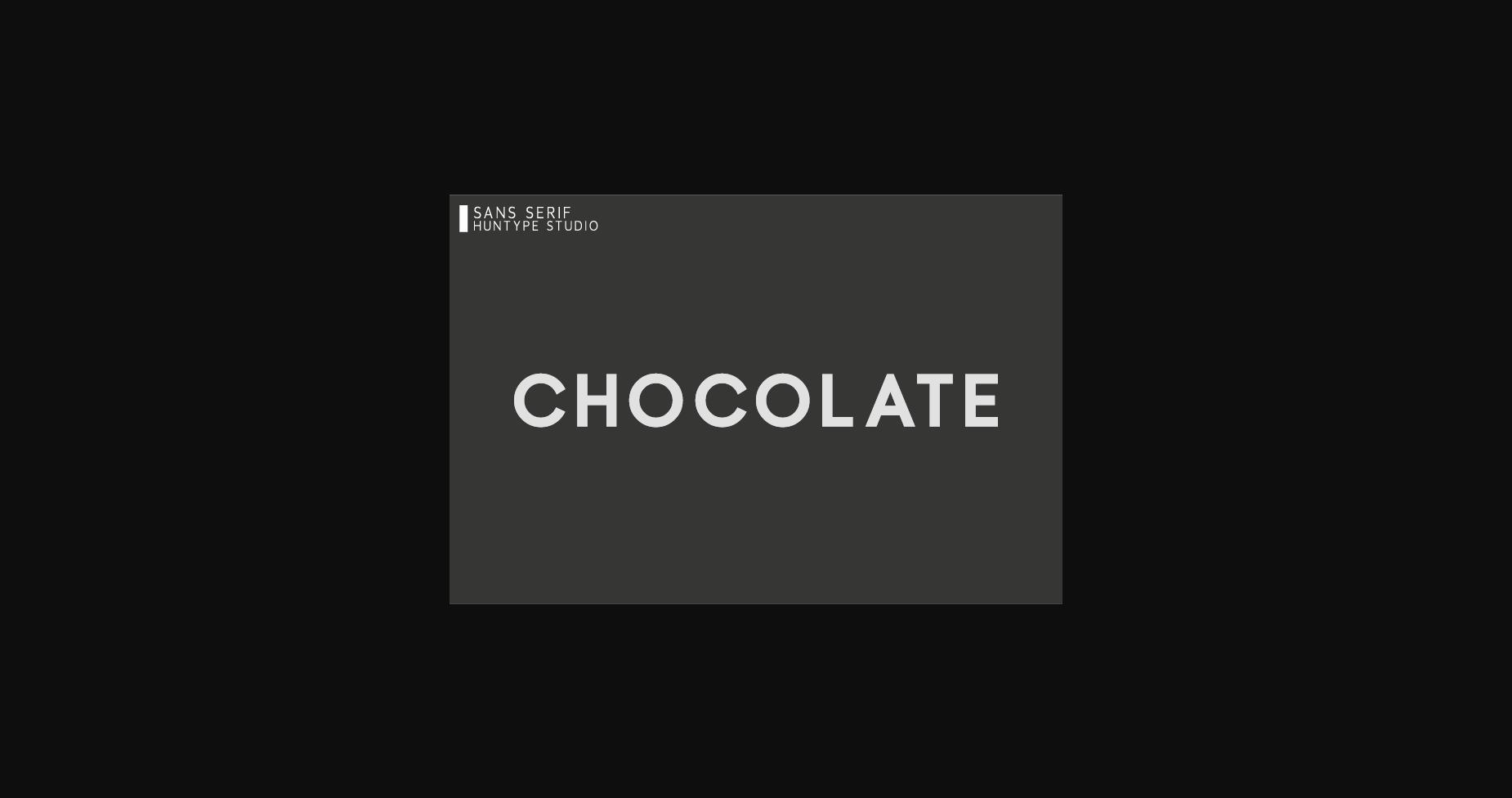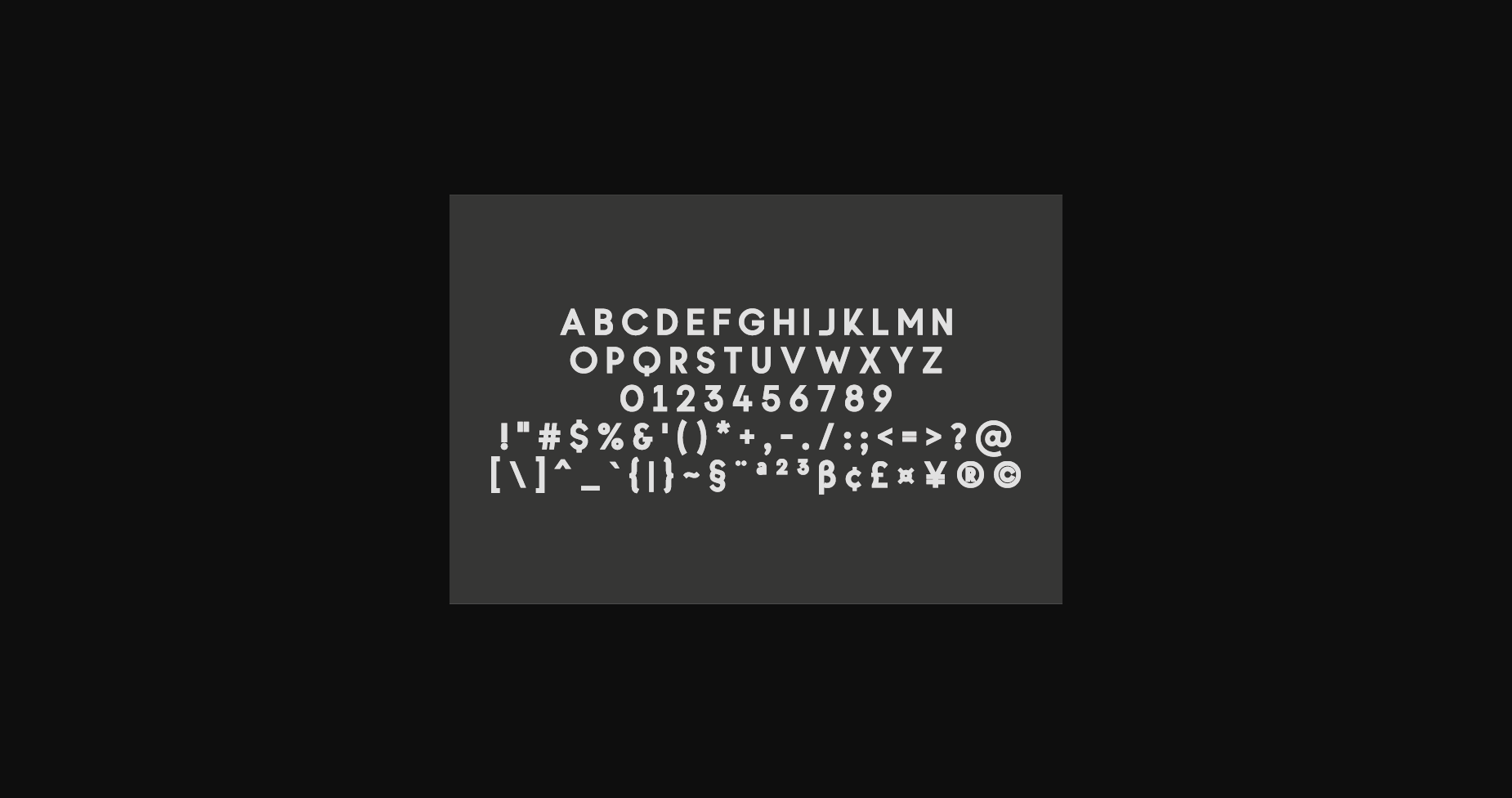
HomeSans Serif FontsChocolate Font Sans Serif Fonts Chocolate Font FacebookXPinterestWhatsApp 1 of 5 ... Chocolate Font Poster 2... Chocolate Font Poster 3... Chocolate Font Poster 4... Chocolate Font Poster 5... About Chocolate Font Chocolate, this all-caps sans serif is so versatile and looks great in just about any context. With smooth and clean lines and just a touch of contrast, Versailles works beautifully for logos, branding, and web headings. DOWNLOAD NOW People also explored Orhydea Font Madison Script Font Hailuna Font Retch Dargotta Font Smiling Rain Font Amartha Font Blambot Classic Saling Cinta – Handwritten Font 303 0 TagsChocolate Font Previous articleFriendzone FontNext articleBareeq Font LEAVE A REPLY Cancel reply Comment: Please enter your comment! Name:* Please enter your name here Email:* You have entered an incorrect email address! Please enter your email address here Website: Save my name, email, and website in this browser for the next time I comment. Personal Use Free Sui Genesis Personal Use Free Read more about this font Ammanda Personal Use Free Read more about this font Zephan Personal Use Free Read more about this font Sea Gardens Personal Use Free Read more about this font BLOG Fonts That Capture the Spirit of New York City New York City is more than just a place—it’s an experience, a rhythm, a visual language... Free vs Paid Fonts: Why Investing in Premium Fonts Is Worth It How to Cut Any Font on Cricut: Convert a Font to SVG (Free) How to Install and Use Fonts on Windows, macOS, and Web Projects